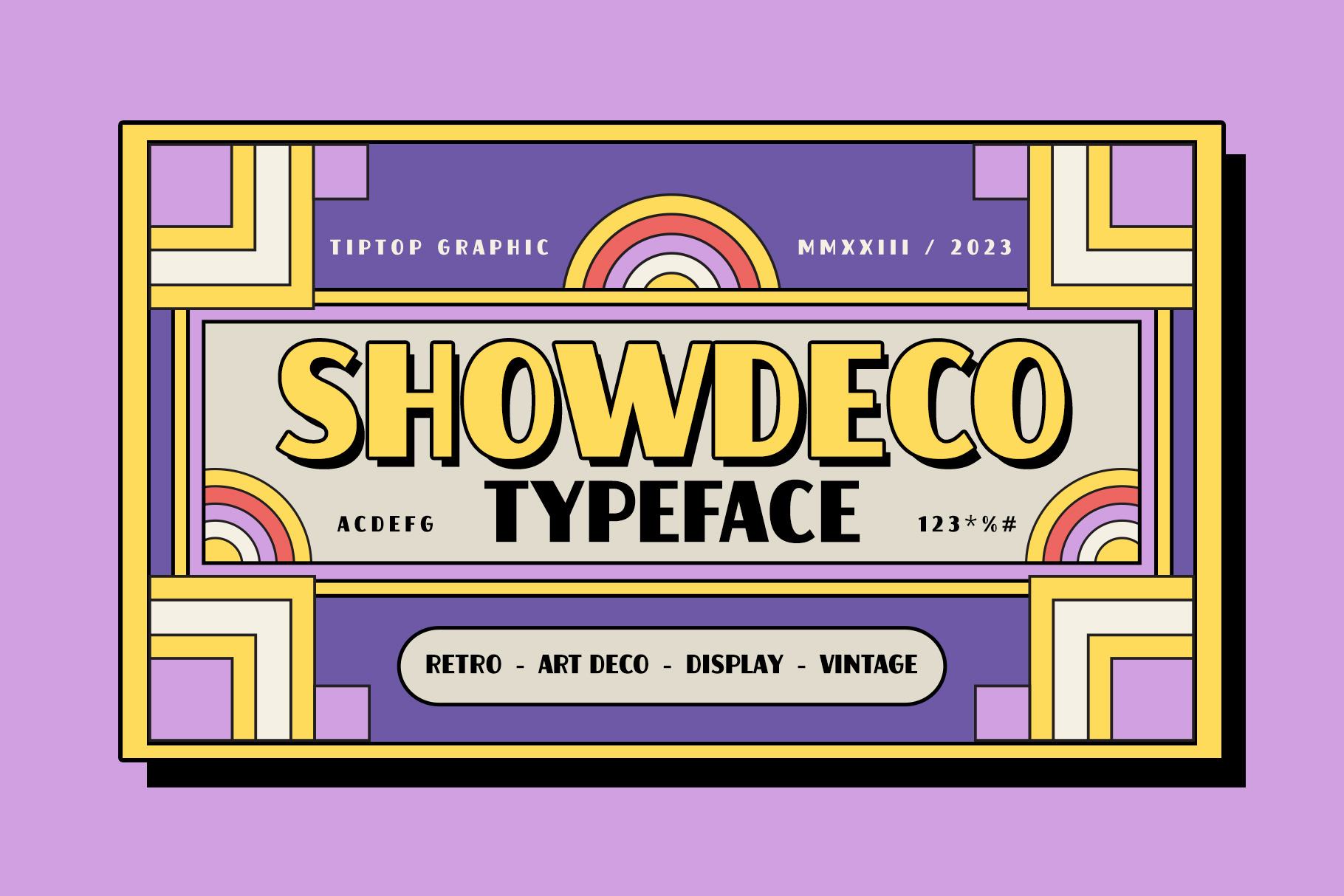
Showdeco | Retro Art Deco Font
Showdeco is a typeface design inspired by the glamour of the 1920s and 1930s era. With With its geometric precision and clean lines. This typeface effortlessly channels the sophistication of the Art Deco era, adding a touch of timeless elegance to any design.